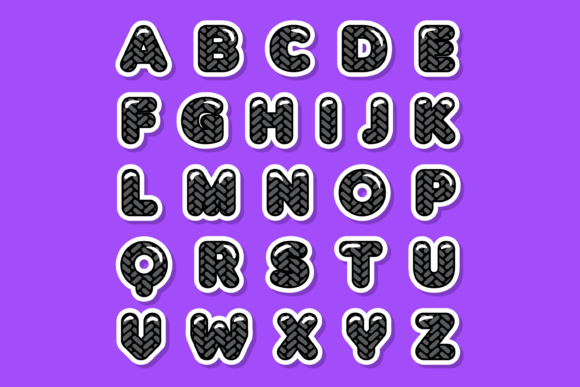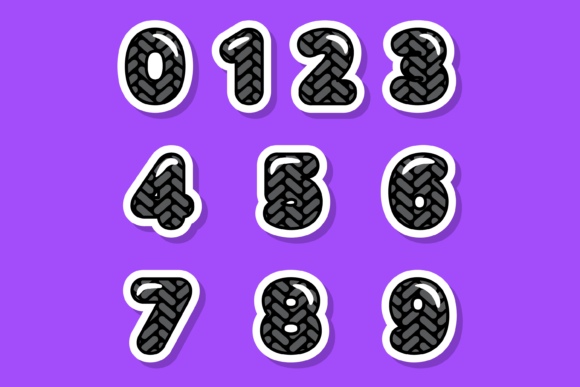
About Tire Tread Font
“Tire Tread” is an incredibly cool color font that adds a unique and edgy touch to any creative project. Whether you’re working on custom designs, DIY crafts, or any creation that calls for a distinct and eye-catching aesthetic, this font will be an amazing choice.
With its textured and rugged design inspired by tire treads, “Tire Tread” brings a sense of boldness and impact to your work. The combination of vibrant colors and intricate details makes it perfect for adding a touch of excitement and personality to various applications. Whether you’re designing posters, logos, merchandise, or anything in between, this font will make your creations truly stand out.
Embrace the cool and distinctive nature of “Tire Tread” and let your creativity shine. The versatility of this font allows it to be used in a wide range of projects, providing endless opportunities for customization and personalization. Add a touch of edge and intrigue to your designs, and witness how “Tire Tread” transforms them into something truly remarkable.
Unleash your creativity with “Tire Tread” as your tool of choice. It’s a fantastic option for adding a cool and dynamic touch to your creative endeavors, making them captivating and memorable with its unique and captivating style.